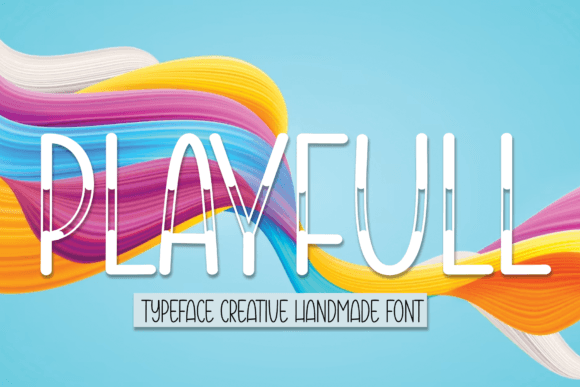
Dive into a world of charm and delight with Playfull Font, the captivating handwritten display font that exudes sweetness and friendliness. This creative and versatile font is a true gem, ready to transform your designs into extraordinary works of art.
Experience the warmth of Playfull's embrace as it dances across your projects, adding a touch of whimsy and cheer. Its enchanting curves and playful strokes create a visual symphony that captivates the senses, leaving an unforgettable impression on your audience.
Unleash your creativity with Playfull, a font that knows no bounds. Its versatility shines through in a multitude of applications, from wedding invitations and greeting cards to posters, logos, and social media graphics. Elevate your designs with Playfull's captivating charm and watch as your projects bloom into masterpieces.
With Playfull, the possibilities are endless. Let your imagination soar as you explore the depths of this delightful font, breathing life into your designs and leaving a lasting impact on those who encounter them. Embrace the joy of Playfull and embark on a creative journey like no other.
Created by the talented William Jhordy, Playfull embodies the essence of artistry and craftsmanship. Its unique style reflects a passion for creating fonts that inspire and elevate, making it a must-have for any designer seeking to make a statement.
Immerse yourself in the magic of Playfull, a font that captures the essence of creativity and imagination. Let its playful spirit ignite your projects and leave a lasting impression that speaks volumes. Download Playfull today and unlock a world of endless possibilities.